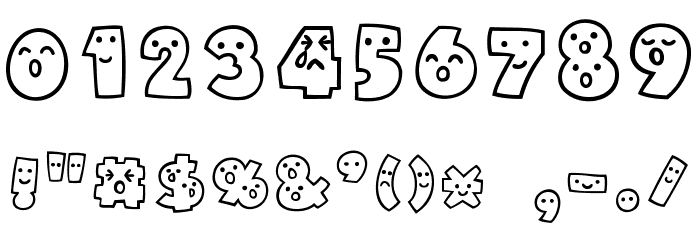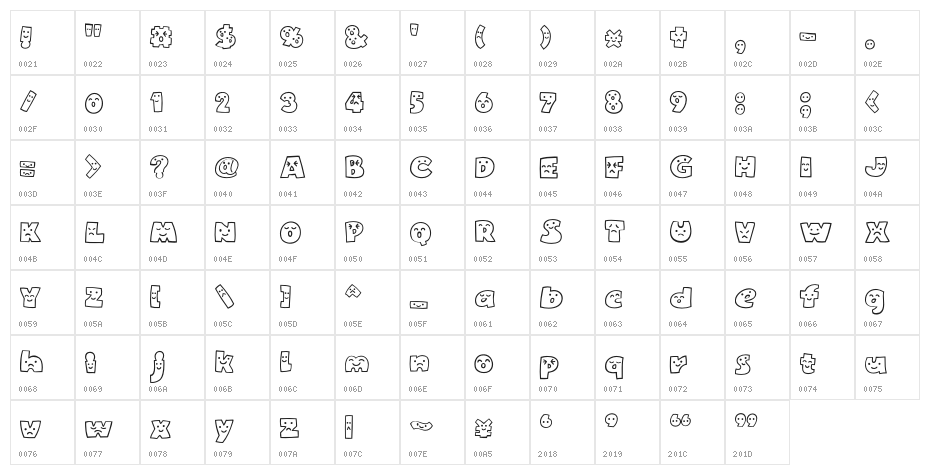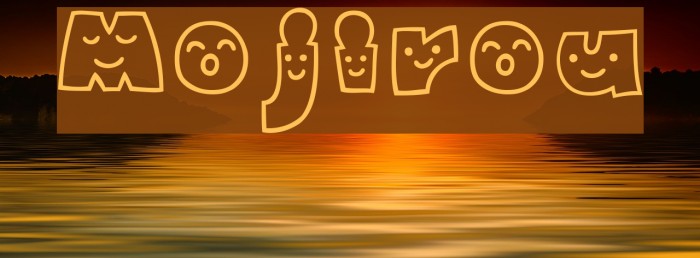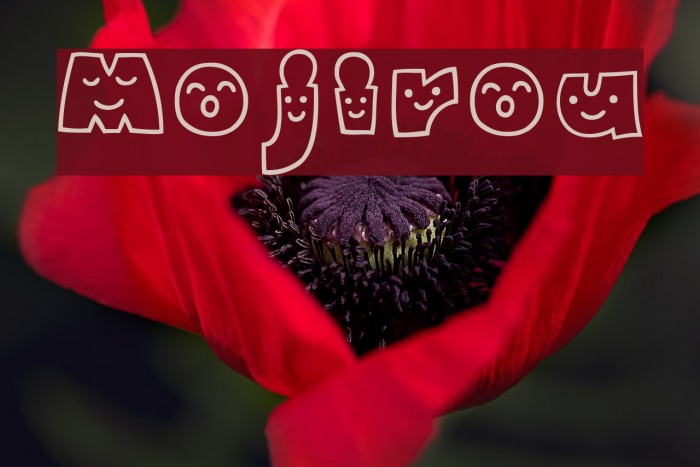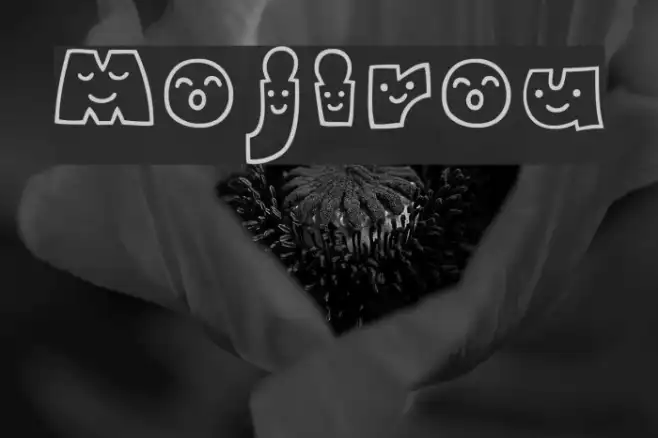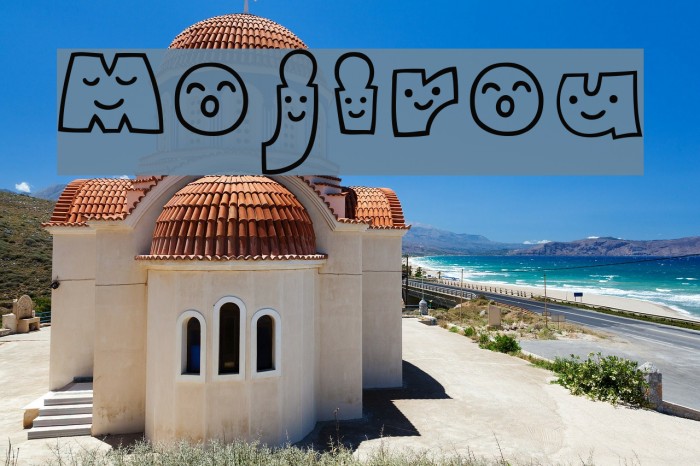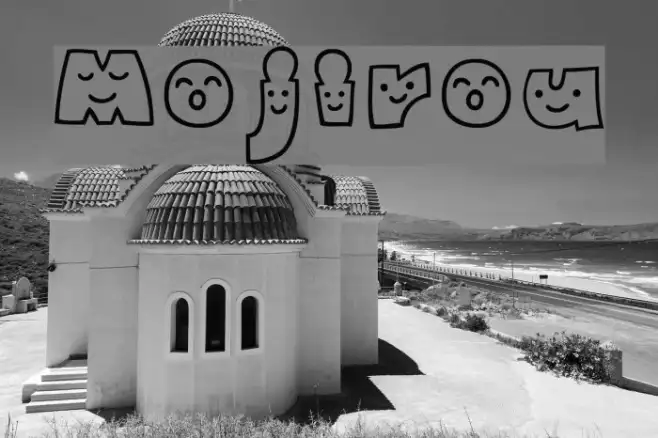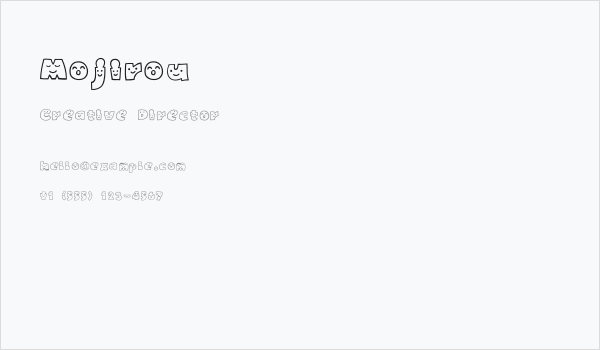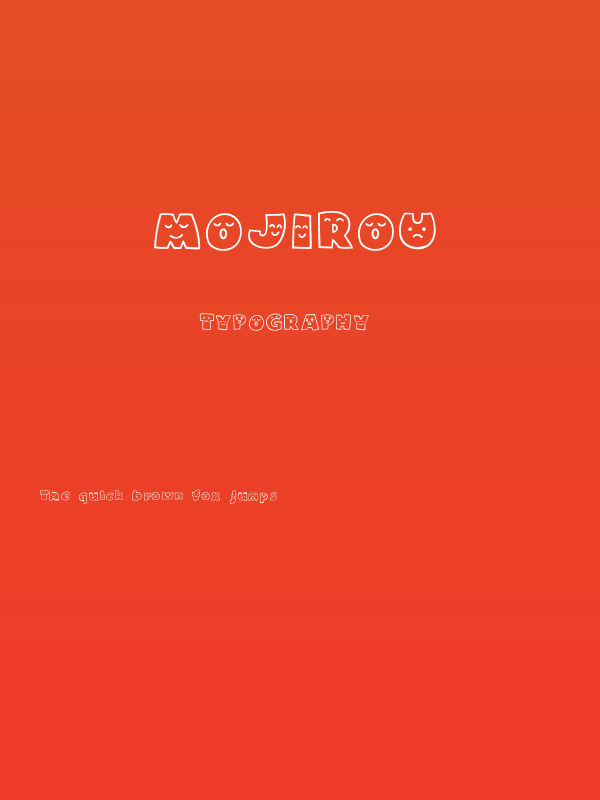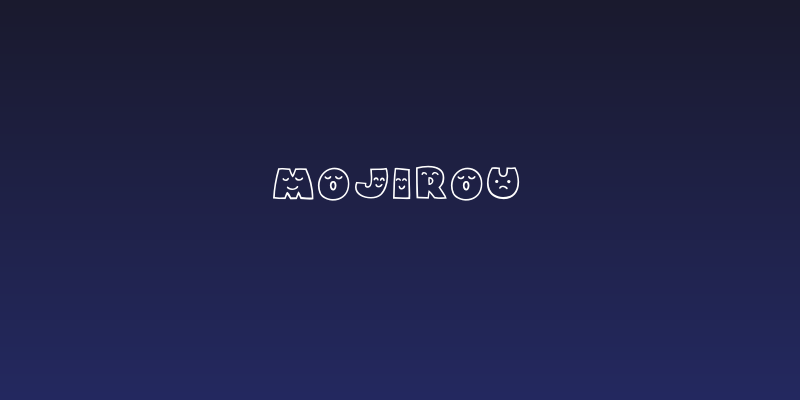
Mojirou Font
Mojirou Description
This playful and whimsical font features characters with expressive faces embedded within each letter and number. The design is bold and cartoonish, with thick outlines that give it a strong presence. Each character has a unique expression, adding a lively and fun element to the text. The font is highly decorative, making it ideal for projects that require a touch of humor and creativity. Its style is reminiscent of doodles or comic art, appealing to a younger audience or those looking to inject some personality into their designs. The spacing between characters is normal, ensuring readability while maintaining its quirky charm.
| Overall Style | Playful, Whimsical, Cartoonish |
| Proposed Projects | Ideal for children's books, comic strips, playful branding, party invitations, and social media graphics. |